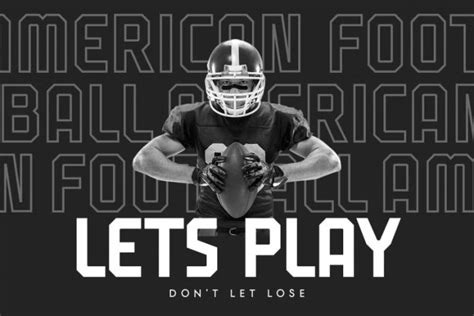
Basketball Font: Slam Dunk Your Designs!
Are you looking to inject some serious hoops energy into your next design project, guys? Whether you’re crafting a flyer for a local basketball tournament, designing a logo for a sports team, or just want to add a sporty touch to your social media graphics, the right basketball font can make all the difference. In this article, we’ll explore the world of basketball fonts, diving into different styles, where to find them, and how to use them effectively to create winning designs.
What Makes a Font a “Basketball Font?”
So, what exactly defines a “basketball font”? It’s not just about fonts that look good on a basketball court! These fonts often share certain characteristics that evoke the spirit of the game. Here’s what to look for:
• Athletic and Dynamic: Basketball fonts usually convey a sense of movement, energy, and athleticism. They might have slanted lines, bold strokes, or a slightly distressed appearance to mimic the fast-paced nature of the sport.
• Bold and Strong: Think about the strength and power of basketball players. Many basketball fonts reflect this with thick, impactful letterforms that command attention. They’re designed to be easily readable even from a distance, just like the numbers on a jersey.
• Retro or Modern: Basketball fonts can range from vintage styles reminiscent of classic sports jerseys to sleek, modern designs that reflect the evolution of the game. The choice depends on the overall aesthetic you’re aiming for.
• Jersey-Inspired: A classic source of inspiration! Many basketball fonts directly emulate the lettering seen on basketball jerseys, often featuring blocky, sans-serif styles with a slightly rounded or angled appearance. This is a great way to instantly connect your design with the sport.
• Distressed Textures: Some basketball fonts incorporate distressed textures or rough edges to give them a worn, vintage feel. This can be a cool way to add character and authenticity to your designs.
When selecting a basketball font, consider the overall message you want to convey and the target audience you’re trying to reach. A retro font might be perfect for a vintage-themed event, while a modern font could be more suitable for a contemporary sports brand. Think about the feeling you get when you watch a game – the energy, the excitement, the teamwork – and look for a font that captures that essence.
When browsing for fonts, use keywords like “basketball font,” “sports font,” “athletic font,” “jersey font,” or “varsity font” to narrow down your search. Pay attention to the font’s character set (does it include all the letters, numbers, and symbols you need?), its readability, and its overall aesthetic. Does it match the style and tone of your project?
Don’t be afraid to experiment and try out different fonts until you find the perfect one. Many font websites allow you to preview the font with your own text, which can be super helpful in making your decision. Also, consider the font pairing. Which other fonts will complement your basketball font in headings, body text, or other design elements? A good font pairing can elevate your design and make it even more impactful.
To give you some inspiration, here are a few examples of popular basketball fonts that you might want to check out:
• Varsity: A classic, blocky sans-serif font that’s widely used for sports jerseys and team logos. It’s a timeless choice that instantly evokes the spirit of basketball.
• Collegiate: Similar to Varsity, but often with a slightly more rounded or stylized appearance. It’s another popular choice for sports-related designs.
• Hoops: As the name suggests, this font is specifically designed for basketball-themed projects. It often features a dynamic, energetic style with slanted lines or distressed textures.
Conclusion: Score Big with the Right Basketball Font!
So, there you have it: a comprehensive guide to basketball fonts! Choosing the right font can really elevate your designs and help you connect with your audience on a deeper level . Whether you’re designing a logo, a flyer, or a social media post, a basketball font can add that perfect touch of energy and excitement. Remember to consider the overall message you want to convey, the target audience you’re trying to reach, and the specific characteristics of the font you choose. With a little bit of creativity and experimentation, you can find the perfect basketball font to slam dunk your next design project! So go out there, explore the world of basketball fonts, and create something amazing, dudes! Remember to have fun with it and let your creativity shine. Good luck, and may your designs always be a swish!